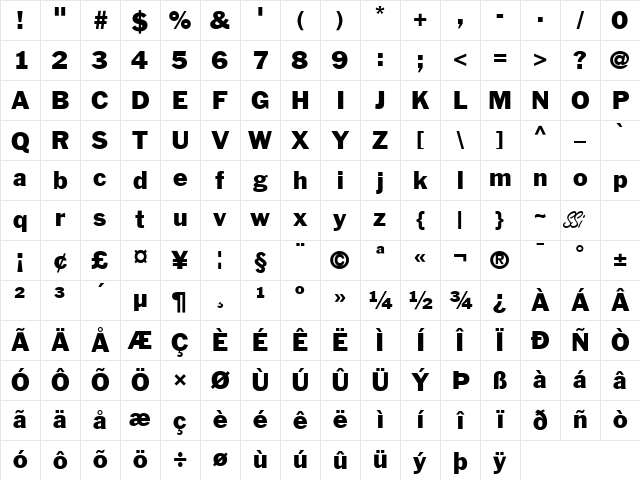
Franklin Gothic Medium SSi Regular
Design Context for Franklin Gothic Medium SSi
Franklin Gothic Medium SSi takes a clean, functional approach - its unadorned letterforms prioritise legibility and work reliably across screen and print environments.
Font Pairing: Works well alongside a characterful serif or display font that can carry the expressive load while Franklin Gothic Medium SSi handles the functional copy.
Pro Tip: Use Franklin Gothic Medium SSi for UI labels, navigation, and short-form body copy where clean legibility is the priority.